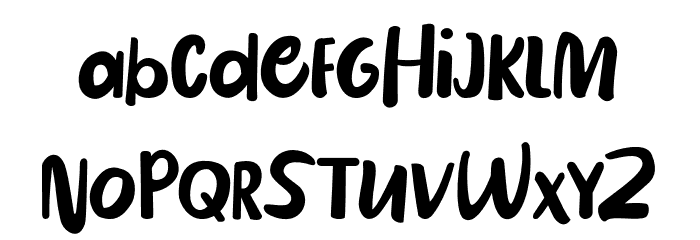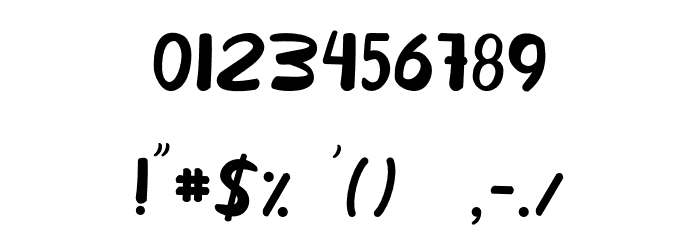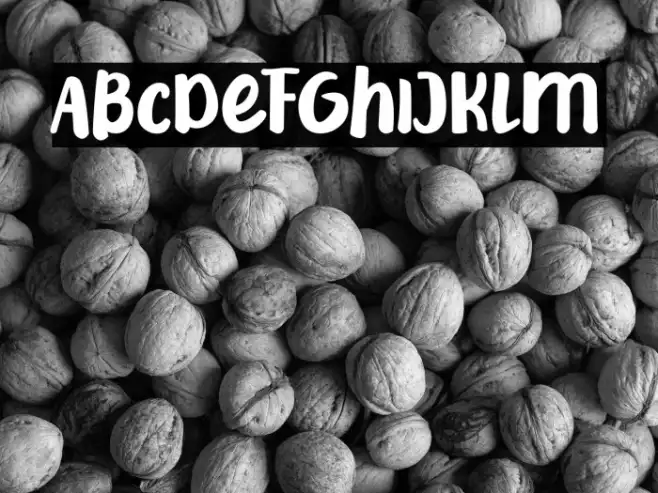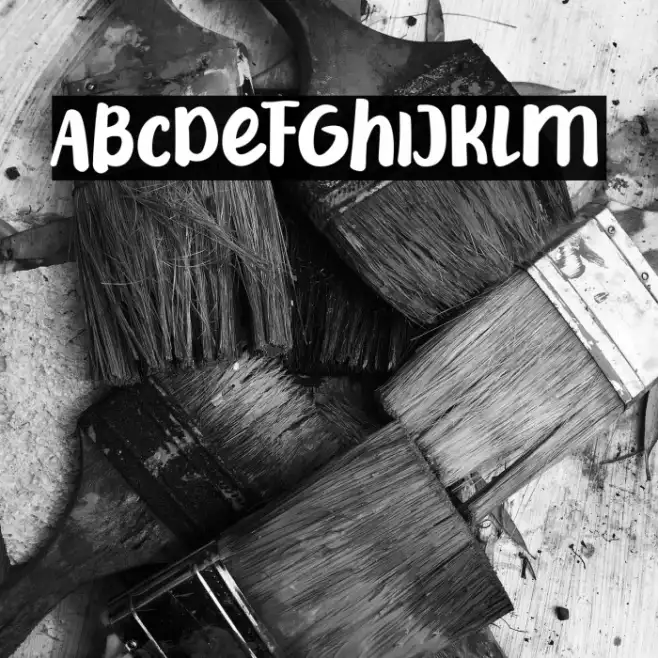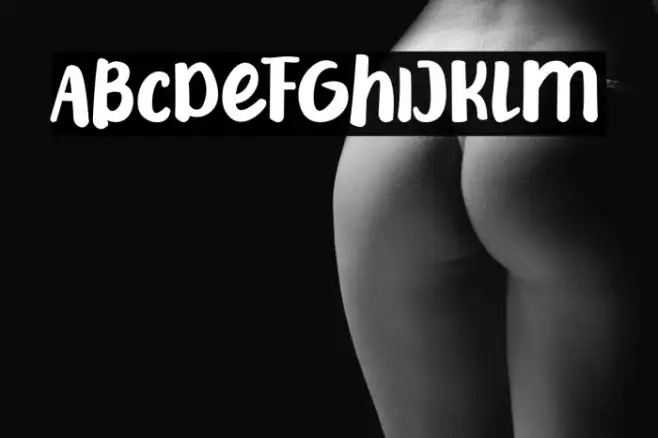
DierjaFREE Font
This font features a playful and rounded style with a handwritten appearance. The letters are bold and have a consistent thickness, giving them a strong presence on the page. The characters are slightly condensed, which adds to the casual and friendly feel. The uppercase and lowercase letters maintain a uniform style, with smooth curves and rounded edges. The numbers and special characters follow the same design principles, ensuring a cohesive look across all elements. This font is ideal for projects that require a personal touch or a fun, approachable aesthetic.
A playful, rounded handwritten font with a bold presence.
- Proposed Projects: Ideal for children's books, greeting cards, playful branding, and social media graphics.
- Category: Handwritten
- Overall Style: Playful
- Use Case: Headlines, Logos, Social media graphics